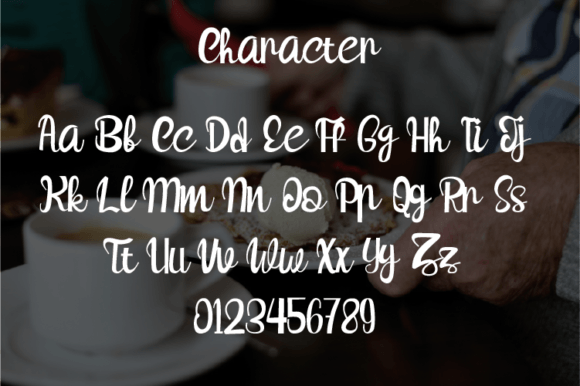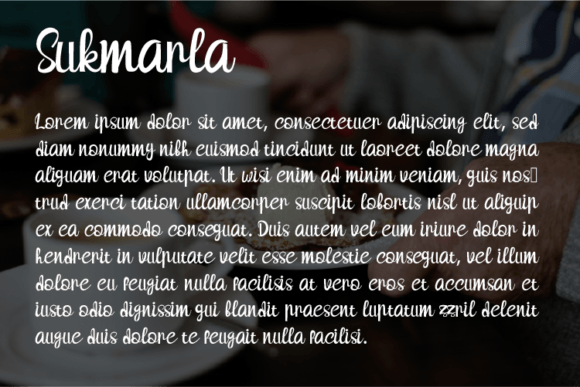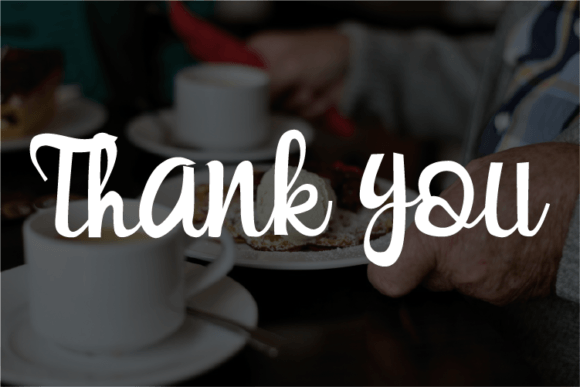
Sukmarla Font
About Sukmarla Font
Introducing Sukmarla, a handwritten font that effortlessly blends a simple style with a modern look. Perfect for creating elegant and luxurious logos, captivating book or movie titles, defining fashion brands, enhancing magazines, refining clothing labels, crafting stylish fonts, and delivering impactful quotes. Add Sukmarla to your creative projects, and watch as they capture everyone’s attention!
Sukmarla’s simplicity is its strength, contributing to a modern and clean aesthetic that aligns perfectly with contemporary design trends. The font’s versatility allows it to excel in a diverse range of applications, making it a valuable asset for designers seeking a sleek and sophisticated touch.
Imagine Sukmarla gracing your luxurious logos, adding a refined and memorable signature to your brand identity. Picture it enhancing book or movie titles, setting the stage for a captivating and modern visual experience. Whether you’re working on fashion brands, magazines, or quotes, Sukmarla becomes the key to achieving an effortlessly chic and attention-grabbing look.
More than just a font, Sukmarla becomes a statement piece in your creative arsenal. Its modern simplicity not only adds a touch of class but also ensures that your projects stand out in the eyes of your audience.
Add Sukmarla now to infuse your creative projects with a handwritten charm that strikes the perfect balance between simplicity and modernity. Let it be the element that captures everyone’s attention and elevates your designs to a new level of sophistication.